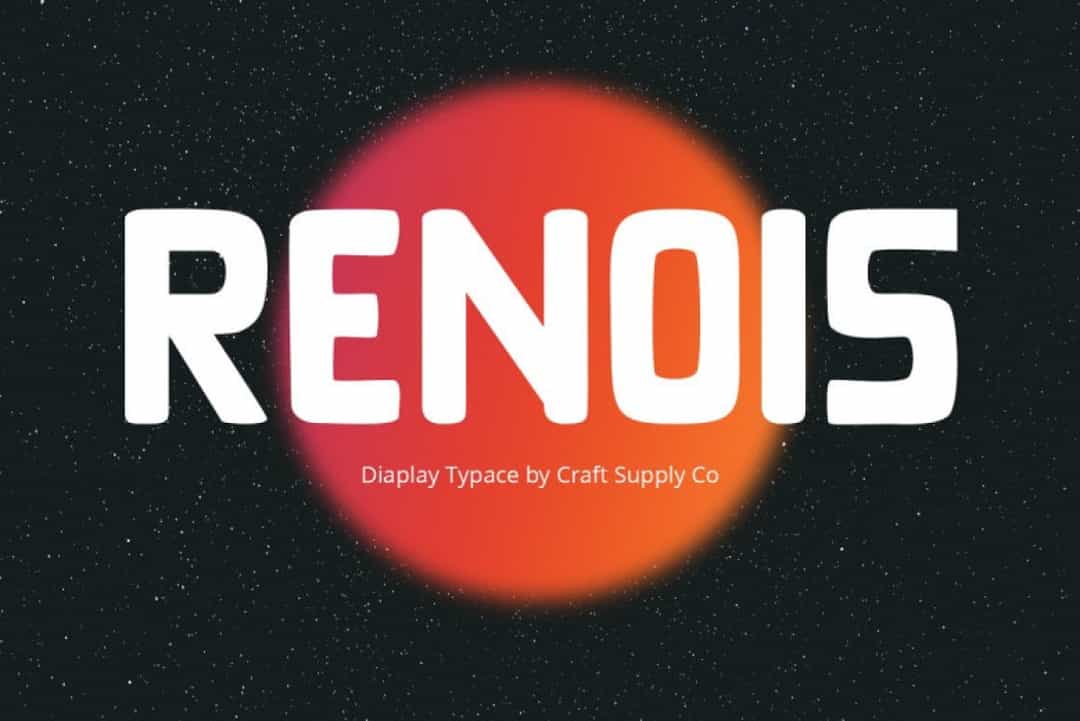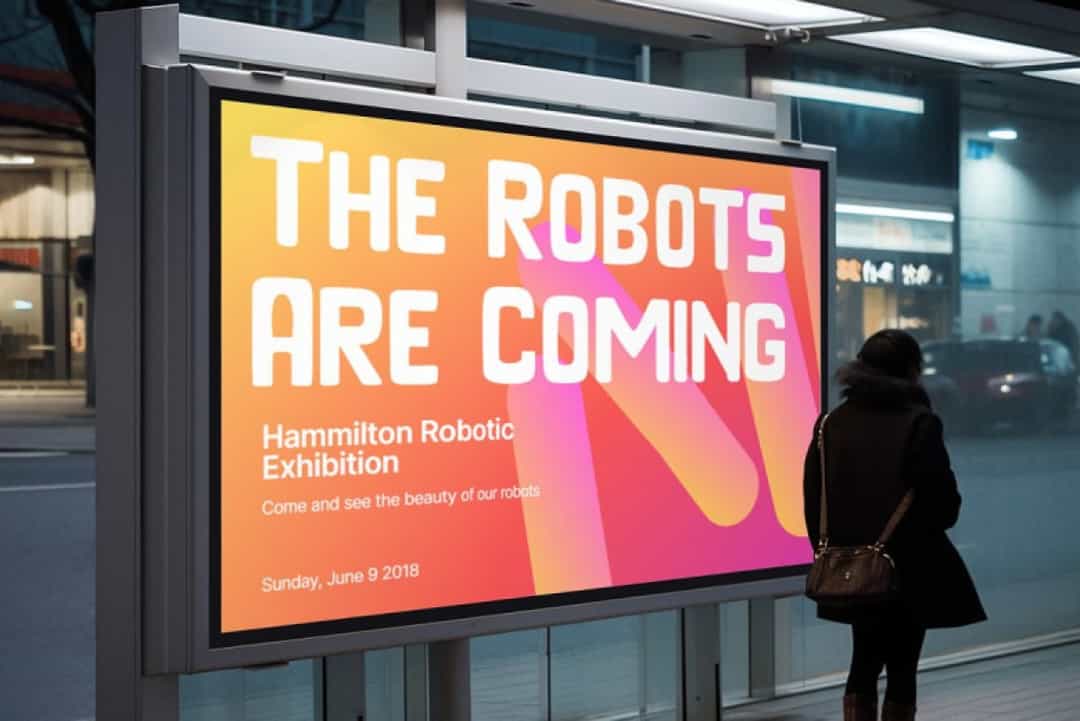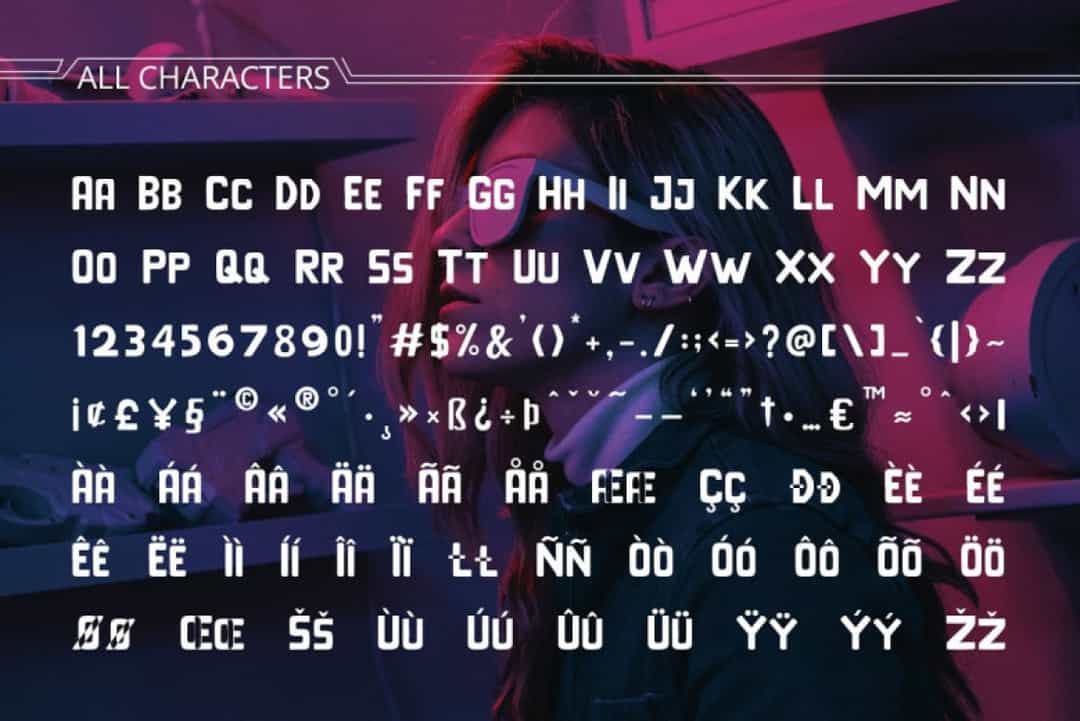
Renois Sans Display Type is more than just a font; it is an expertly crafted tool designed to make an immediate statement in a range of display applications. Renois’ bold yet concise layout ensures your message gets front-page exposure, drawing readers immediately to it – making Renois an ideal choice for headlines or displays that need immediate notice.